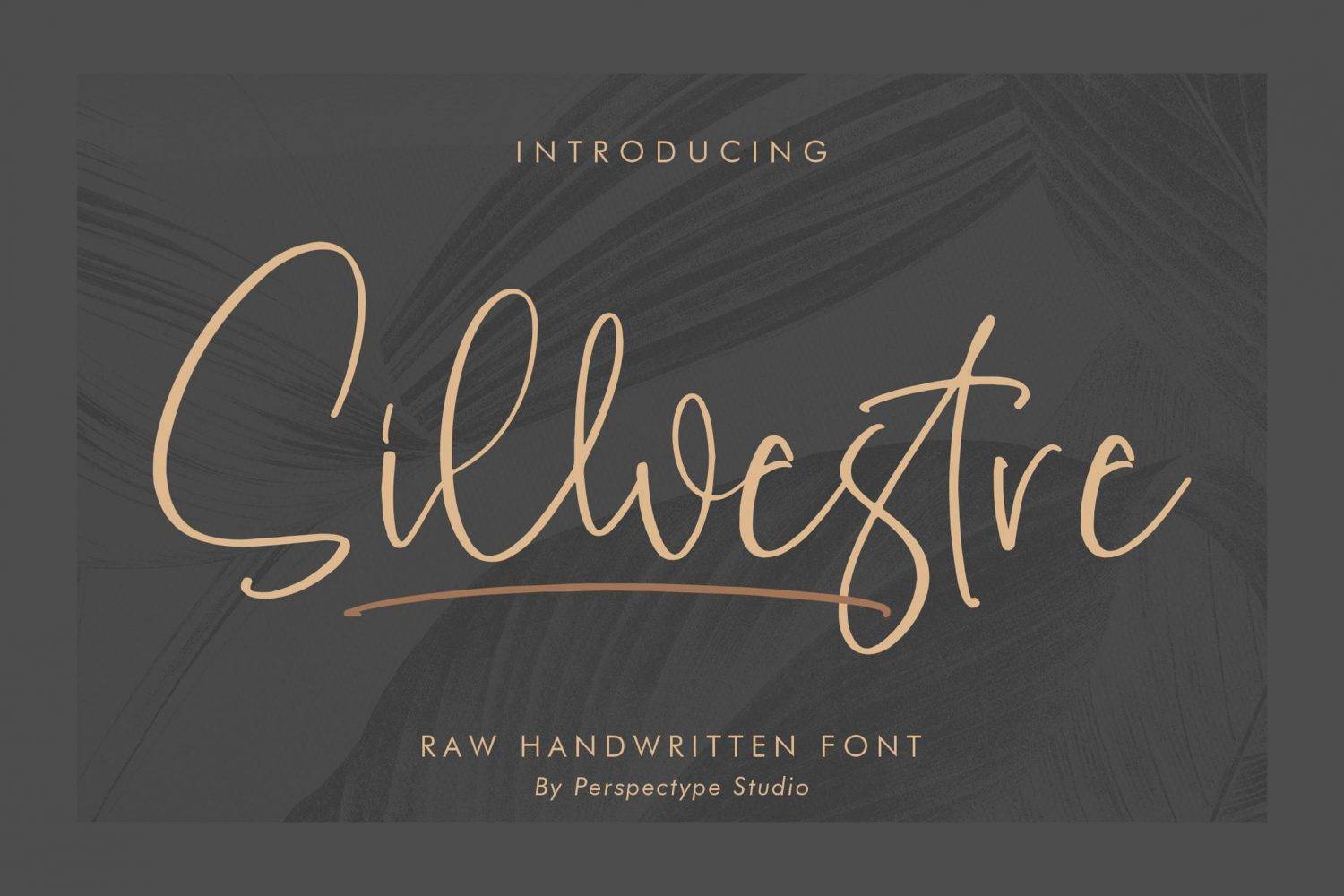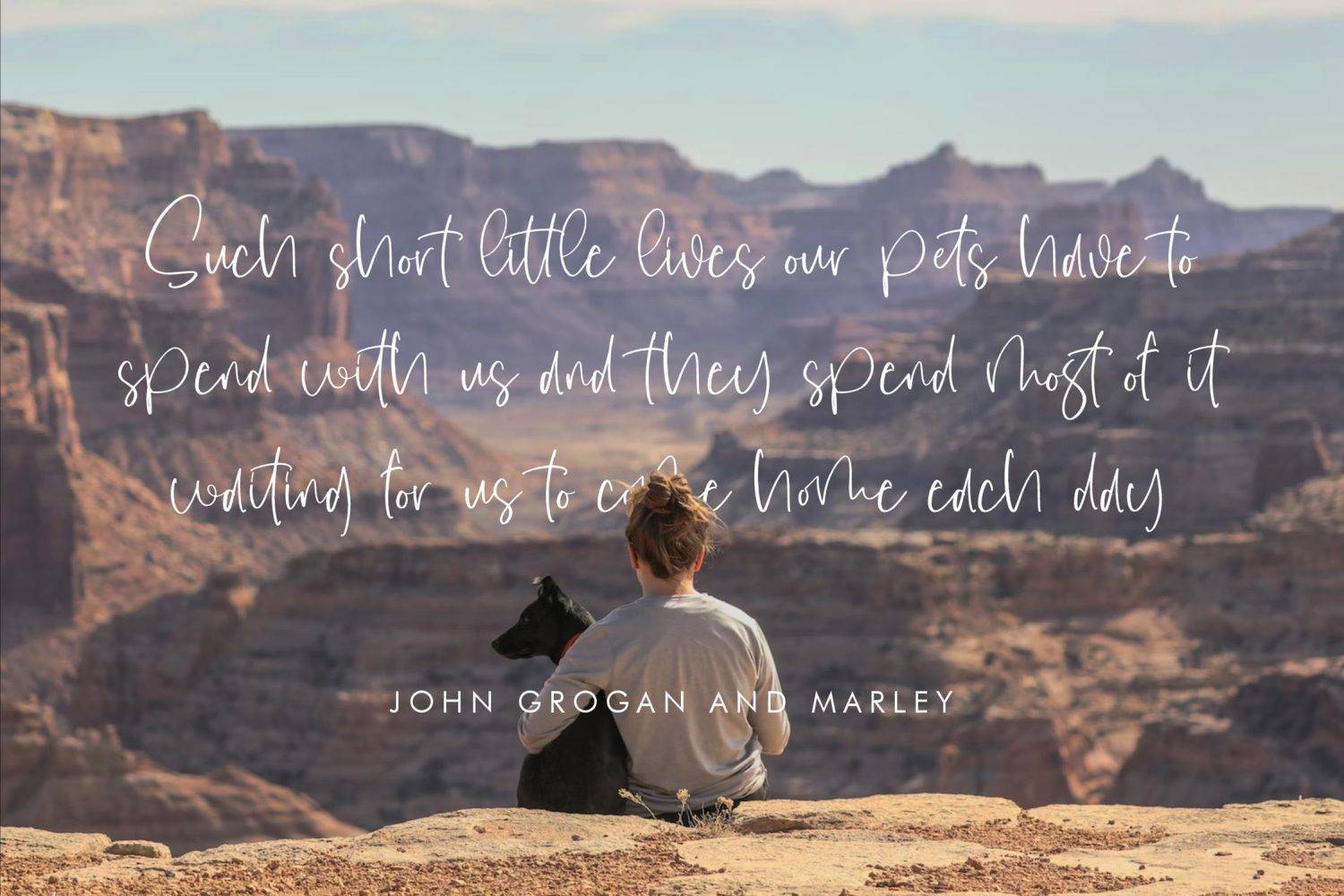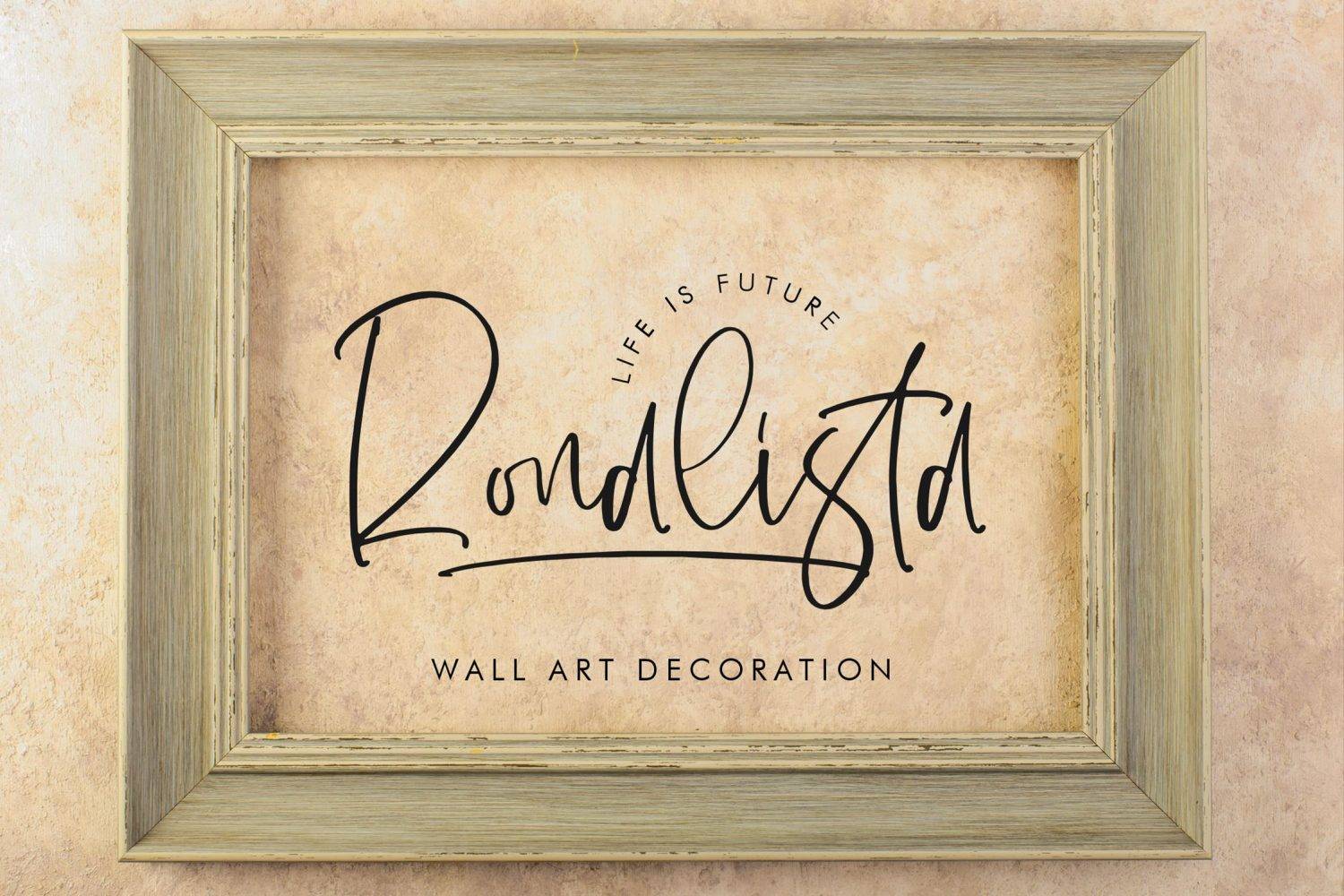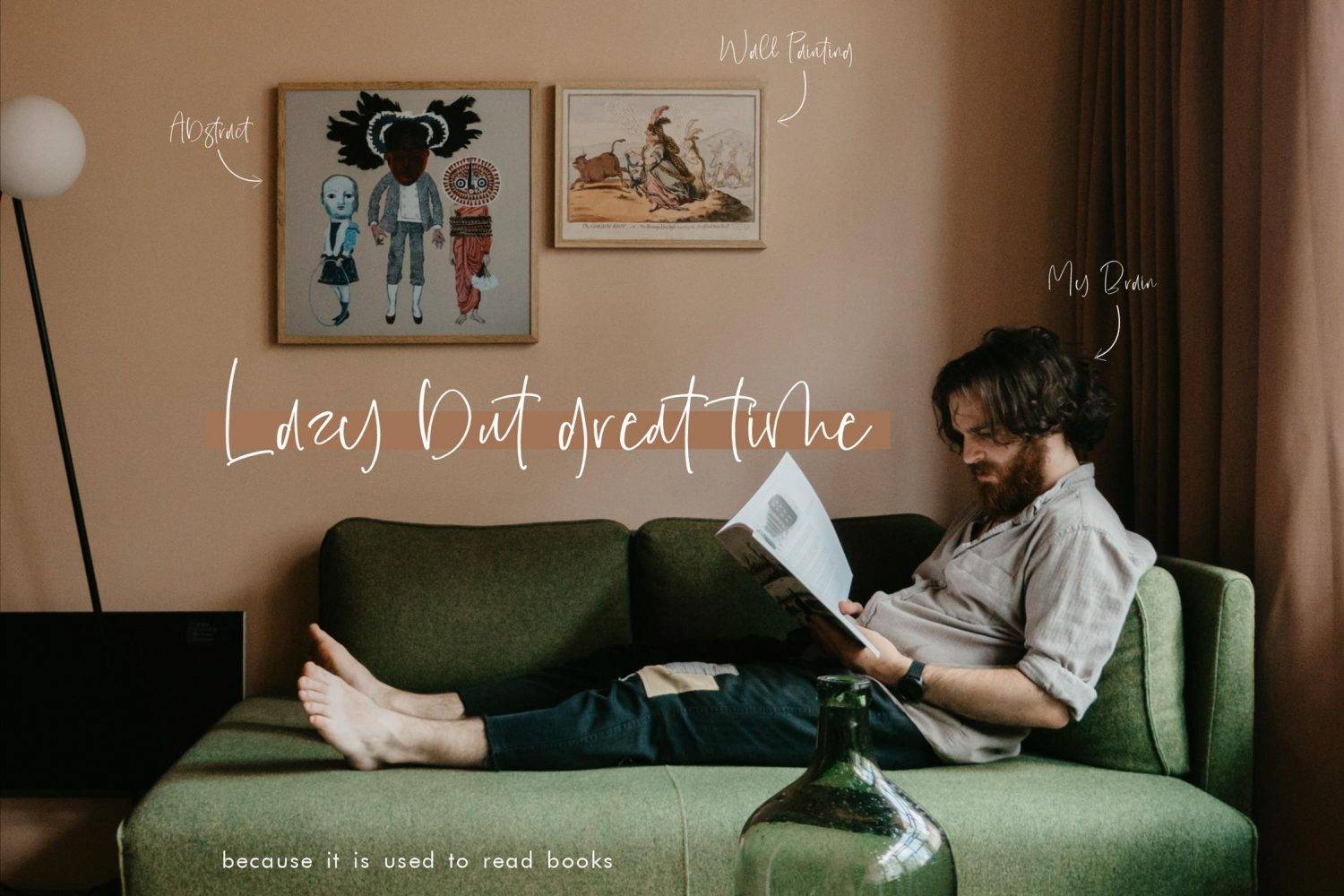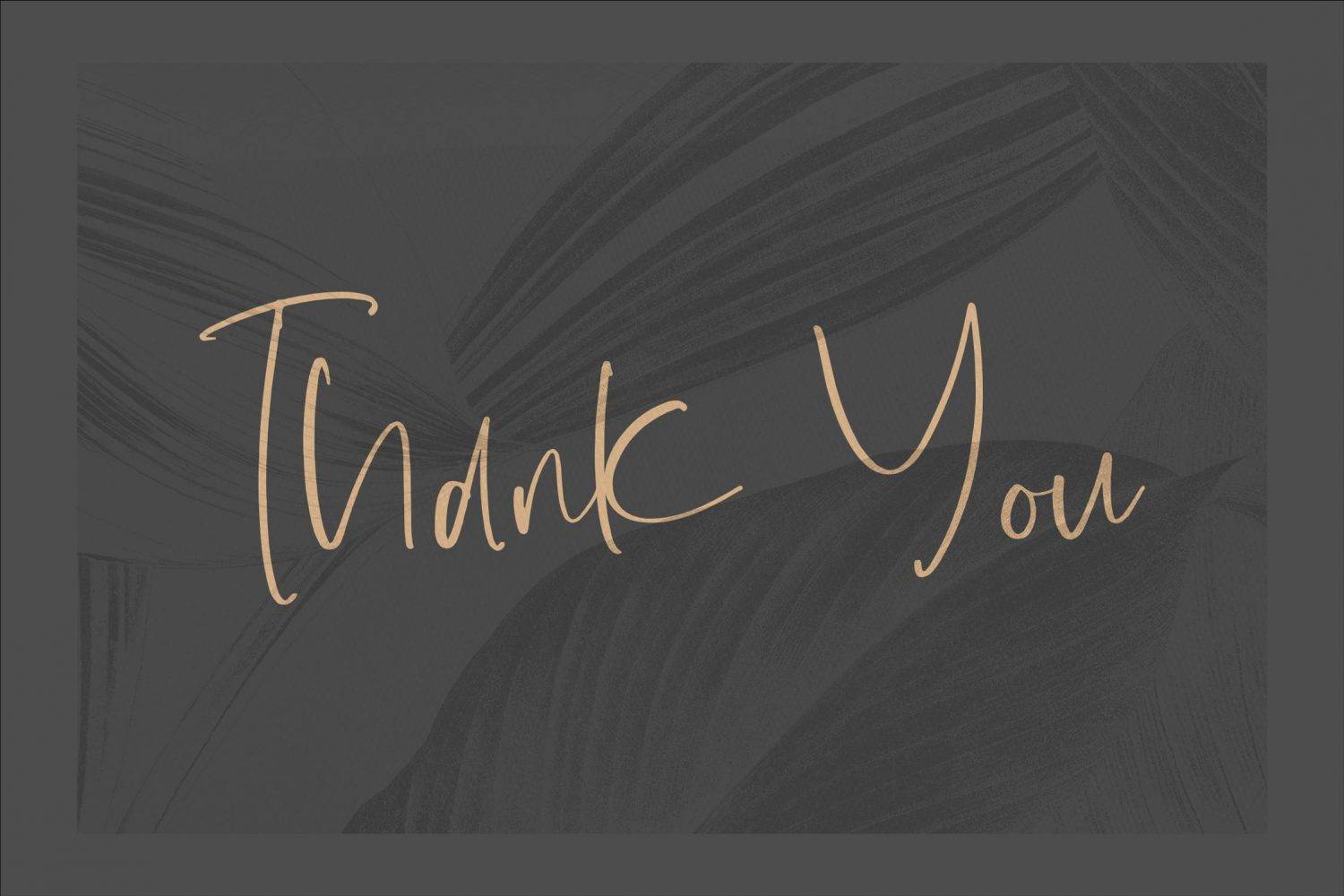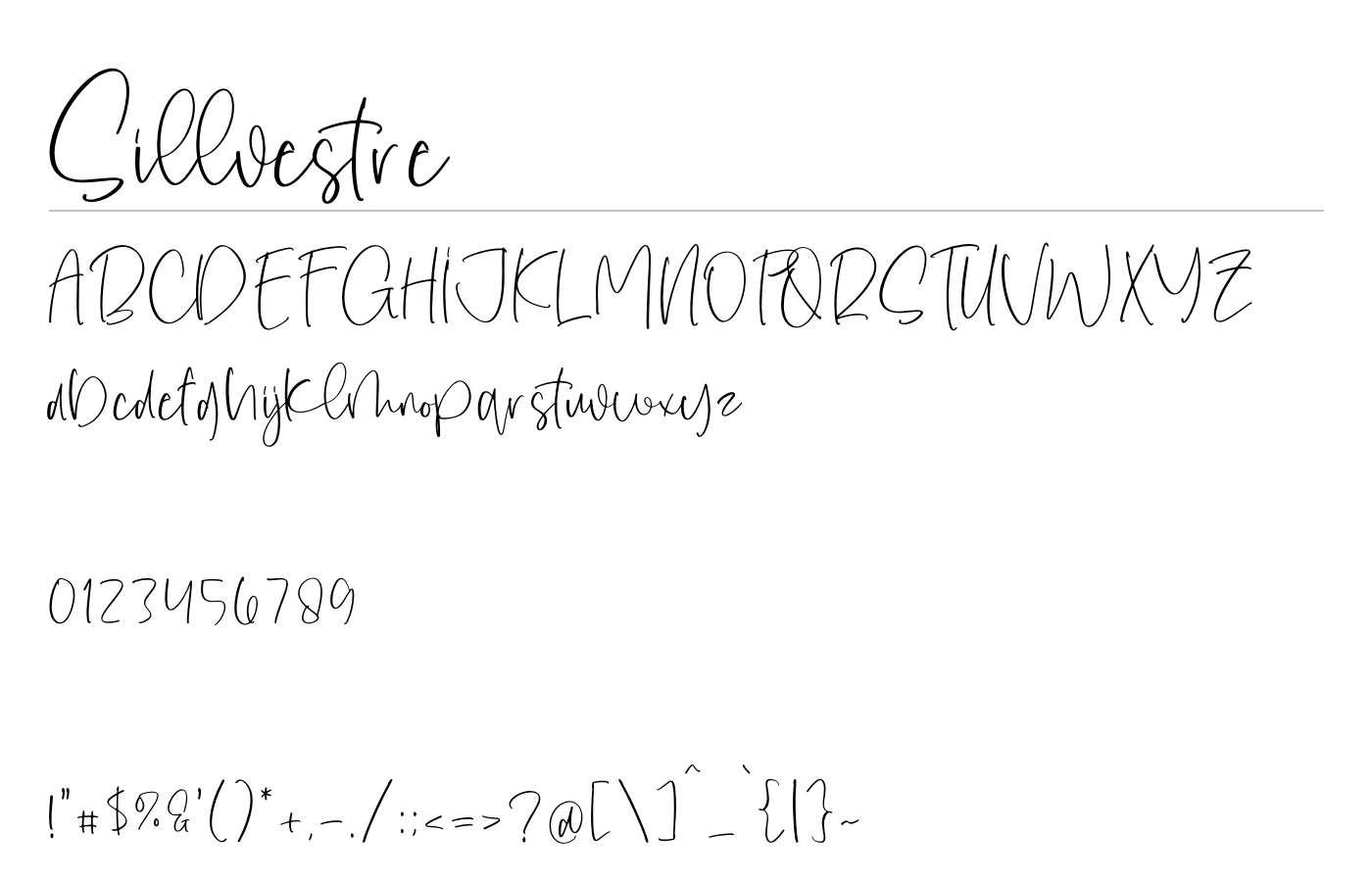
Sillvestre is a delicate, handwritten script font featuring slender, flowing strokes that evoke a personal and casual feel. Its light weight and airy character shapes give it a charming, approachable style perfect for creative projects, invitations, and branding that seek a warm, authentic touch. This font works best where a subtle, elegant handwritten effect is desired to add personality without overpowering other design elements.
Sillvestre Font
About Sillvestre Font